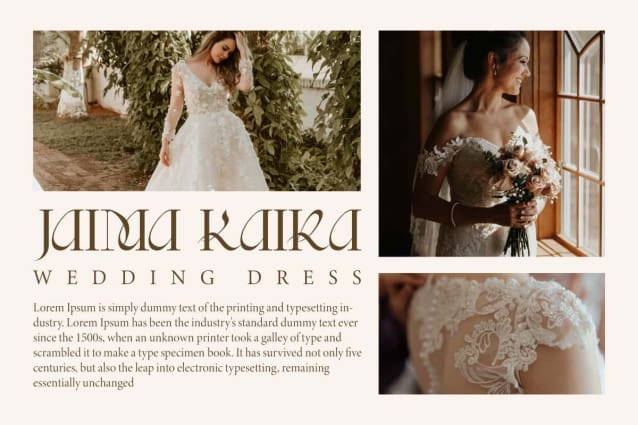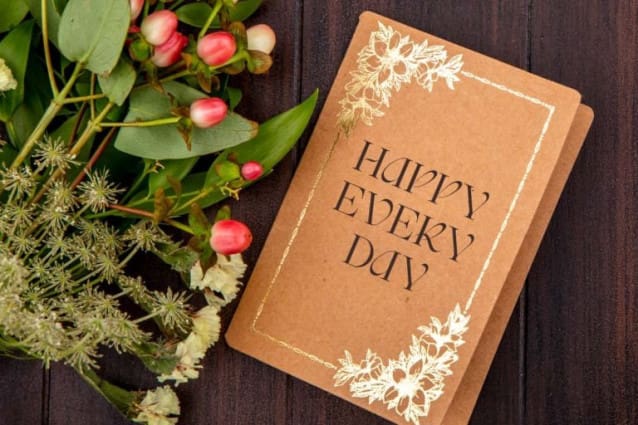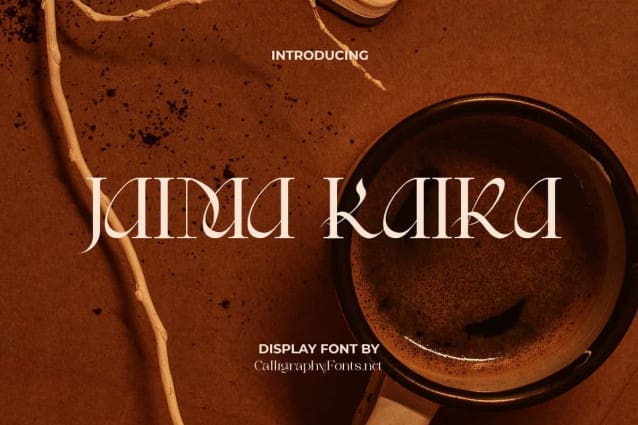
Jaima Kaira Font
Jaima Kaira Font is a beautiful sophisticated serif display font that will catch the eye and make any design stand out. Bring your brand to life and add a touch of modernity from this font style. Use it for banner, billboard, brand logo, brochure, business cards, covers, headings, headline, invitations, labels, quotes, social media branding, stationery, titles, website, etc.
Jaima Kaira Font is an elegant display font of serif form that will bring a unique style and trendy look to your designs. It is trending and specially made for you to be used alone and work perfectly to be paired with other fonts. Even for any design work that requires a classic or modern look and whether it is formal or not. This would be perfect for artisan soap maker, bridal boutique, fashion, florist, graphic designs, handicraft, homeware, photography, spa salon, writers, and more.